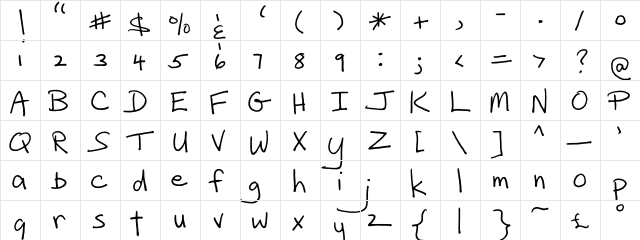
FG Filip Regular
Design Context for FG Filip Typeface
FG Filip takes a measured approach to typography — its balanced proportions and neutral character make it a reliable workhorse for both digital and print work.